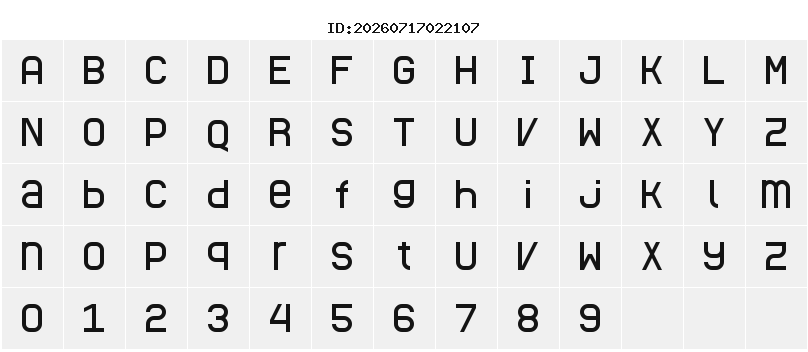
AFLD Preview
• Font Name: AFLD
• Designer: Daniel Lyons
• Description: ‚ÄúAFLD‚Äù was built with FontStruct
About AFLD.ttf
AFLD.ttf is a modern, elegant sans-serif font designed for ultimate readability and visual harmony. Perfect for branding, headlines, web design, and print materials.